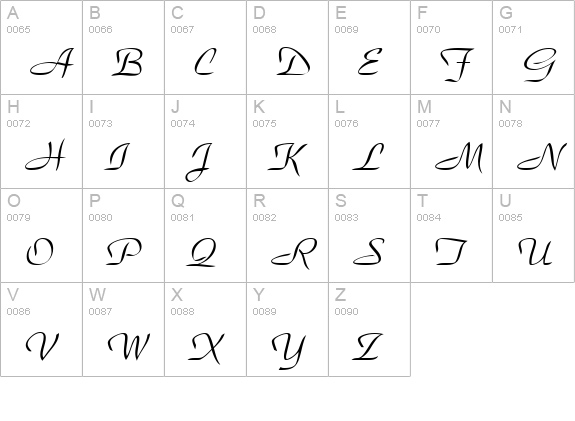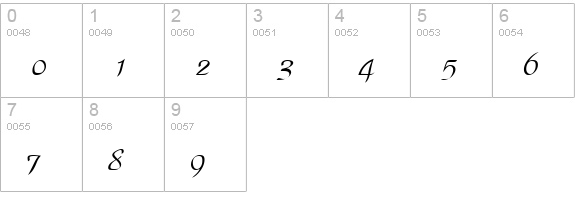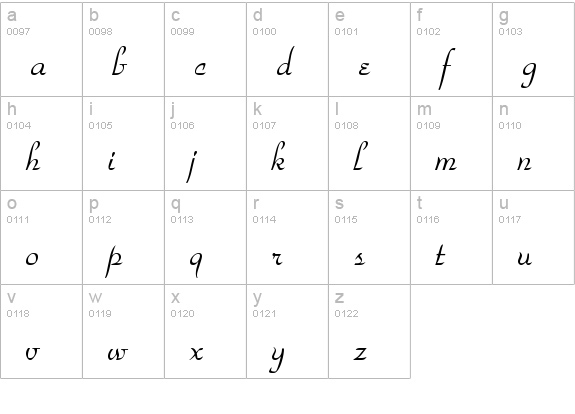
QTBoulevard Regular Font Details
QTBoulevard Regular is the standard, neutral variant in the QTBoulevard typeface family \xE2\x80\x94 well suited to general body text, paragraphs, and standard typographic work.
QTBoulevard Regular font is a visually stunning typeface that exudes elegance and sophistication. Its sleek and modern design makes it perfect for a wide range of projects, from branding and advertising to digital and print media. With its clean lines and balanced letterforms, QTBoulevard Regular font effortlessly captures attention and creates a lasting impression. It strikes the perfect balance between professionalism and creativity, making it suitable for both formal and informal contexts. This versatile font offers a wide range of weights and styles, allowing for endless possibilities in typography. Whether you need to emphasize important headlines, add a touch of elegance to your designs, or simply enhance readability, QTBoulevard Regular font has got you covered. The best part? QTBoulevard Regular font is available for free download at FontsMarket.com. This means that you can easily access and use this incredible font in your projects without breaking the bank. Don't miss out on the opportunity to elevate your designs with this beautiful and freely available typeface. So, why wait? Take your designs to the next level with QTBoulevard Regular font, and let your creativity shine. Download it today from FontsMarket.com and unlock a world of design possibilities.